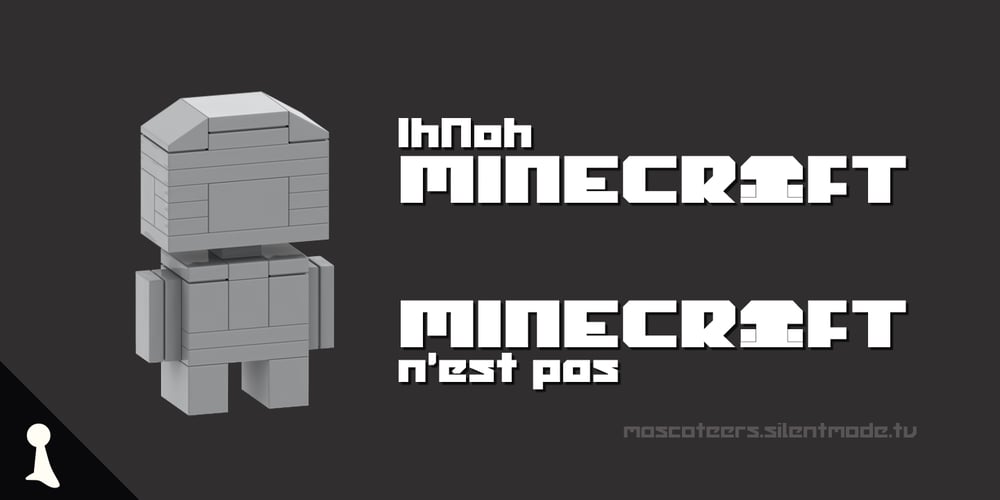
MyCRFT Font Family was designed by Drew Maughan and published by DM Founts. MyCRFT contains 6 styles and family package options. MyCRFT was designed as a custom heading typeface for Drew Maughan’s IhNohMinecraft project. ABOUT THE PROJECT Beginning life in 2015 under the name Mascoteers, the project was an ensemble of small-scale characters built from LEGO elements. The challenge was in creating the different figures with the restrictions of existing LEGO elements, while being recognisable as individual characters. The project was initially well received within the LEGO community and with the general public, but was eventually ignored and even ridiculed in favour of LEGO’s own BrickHeadz theme, launched in late 2016. It was rebranded IhNohMinecraft as a response to the deliberate cries of “Ih dih Minecraft?” since BrickHeadz’ launch. The project has no relation to the popular game. ABOUT THE TYPEFACE The motivation to create MyCRFT was as part of establishing IhNohMinecraft as its own project, by giving it a new visual identity. The typeface could be described as a cross between the ones used for Gears Of War and Overwatch. I liked the boldness of the former, and the italicized straight edges of the latter. MyCRFT was intended to be used in its Black Italic form from the beginning, and was designed around the letters from the word MINECRAFT. Where I couldn’t decide on specific characters, I’ve included the designs as alternative glyphs. I’ve also included the old “square” Mascoteers logo and the newer “head” IhNohMinecraft logo. MyCRFT is paired with Kanit on the official IhNohMinecraft web site. Let me know if you discover a better pairing! PROJECT LINKS View the IhNohMinecraft “reveal” playlist on YouTube. The official Mascoteers/IhNohMinecraft web site.